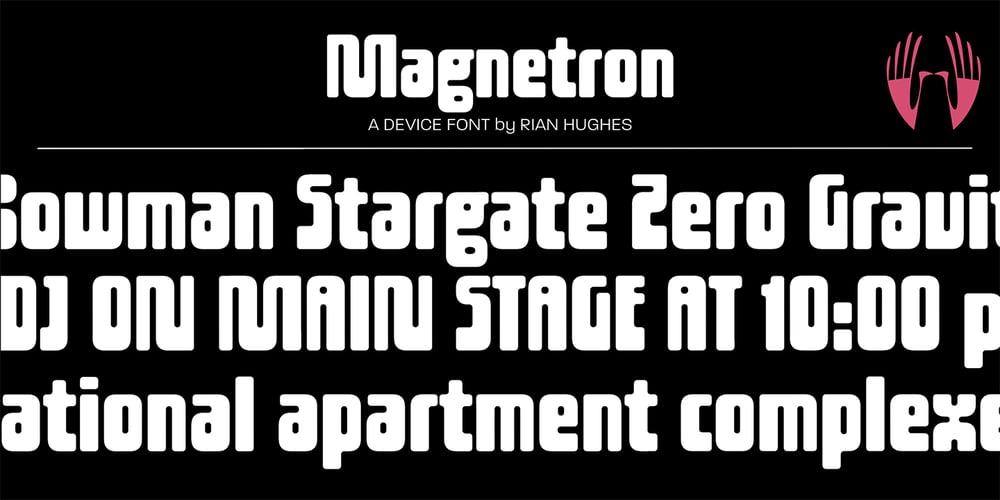
Magnetron
Magnetron font
Magnetron Font Family was designed by Rian Hughes and published by Device. Magnetron contains 1 styles and family package options. Magnetron is a thick/thin sans with a rectilinear, round-cornered construction. Reminiscent of early computer games or contemporary dance music festival posters, it has a fashionable retro-futuristic appeal.